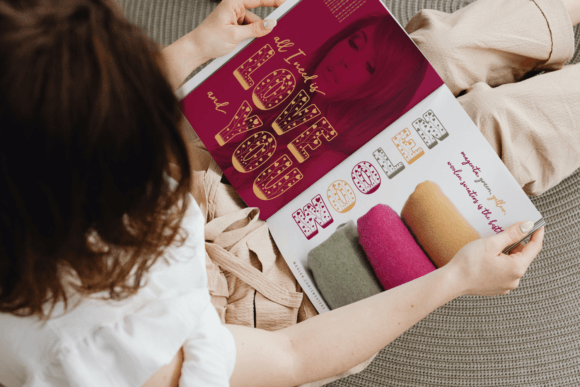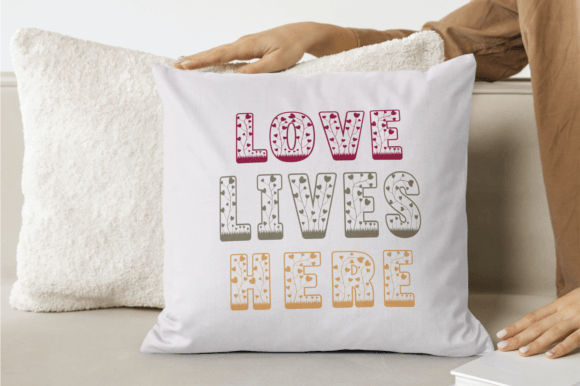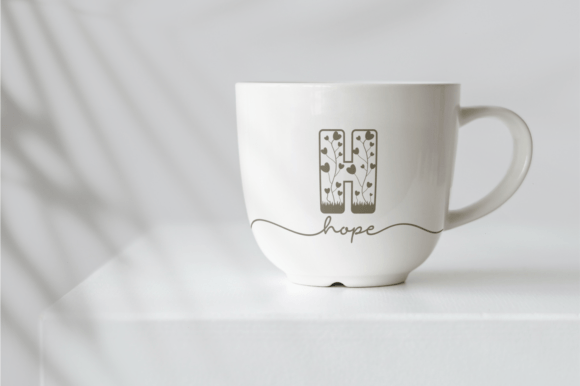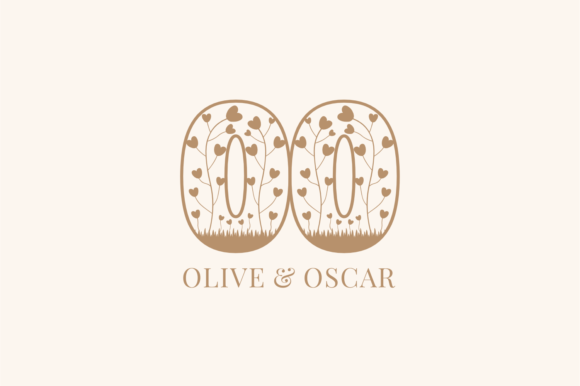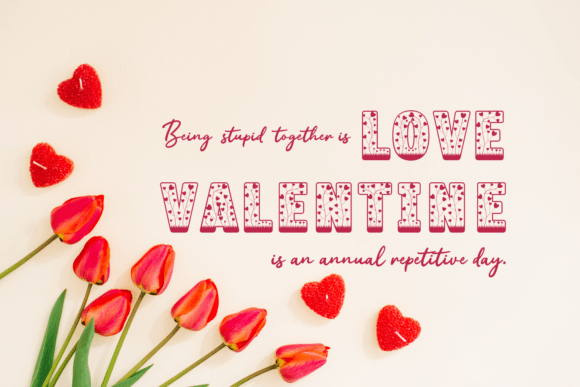
Introduction to Elloyse Love Font
Elloyse Love is a charming and elegant decorative font, perfect for adding a touch of sophistication to your designs.
With its flowing lines and playful details, this font will bring a touch of whimsy to your invitations, posters, and social media posts Use it to create unique and memorable graphics that will leave a lasting impression.
Key Features of Elloyse Love Font
Why Choose Elloyse Love Font?
Elloyse Love Font offers exceptional quality and versatility, making it a valuable addition to your design toolkit. Whether you’re creating for personal projects or commercial use, Elloyse Love Font delivers professional results.